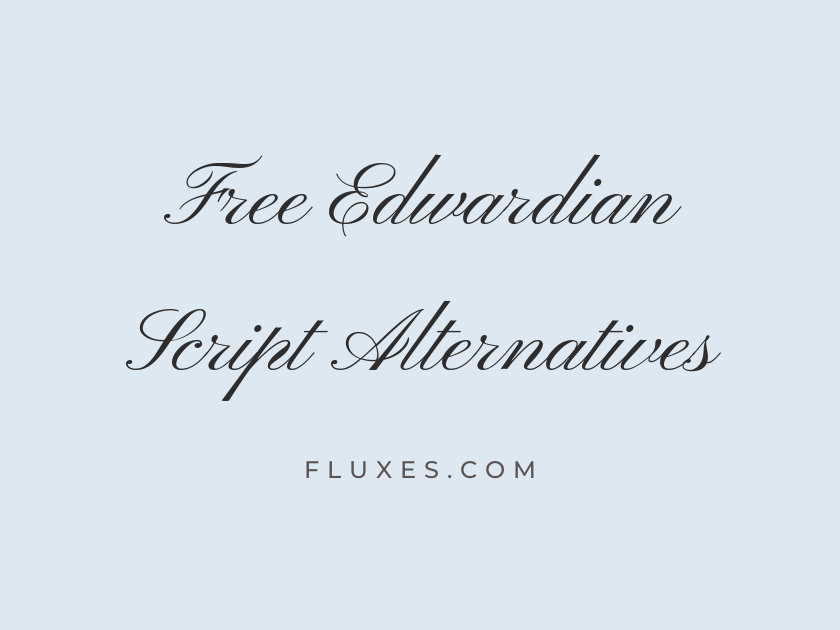
15 Best Free Fonts Alternatives to Edwardian Script
Edwardian Script ITC has long been the default choice for wedding stationery, formal certificates, and monogram logos, prized for its narrow, high-waisted letterforms and delicate flourishes. It is also a commercial font, which sends a lot of designers looking for a free alternative that captures the same copperplate elegance without the licensing fee. The good news is that Google Fonts has a genuinely strong bench of formal scripts, several of which echo Edwardian Script’s pointed-pen character closely enough to use as a direct substitute in invitations, place cards, and branding that wants a handwritten, old-world signature look.
Of everything on Google Fonts, Pinyon Script is the closest cousin to Edwardian Script in spirit: tall ascenders, looping descenders, and a slightly formal stiffness that reads as engraved rather than casual. It was built for exactly this kind of work, invitations, certificates, and monograms, and it holds up well even at modest sizes on print stock.
Great Vibes is looser and more rounded than a true copperplate script, but its warmth makes it one of the most popular wedding fonts on the platform. It pairs beautifully with a restrained serif for body text, since its own flourishes need room to breathe.
Alex Brush behaves like a brush-lettered signature rather than an engraved script, with visible pressure and taper in the strokes. Use it for a name treatment or a short vow rather than a paragraph; at small sizes the connecting strokes tend to thin out and lose definition.
Allura leans slender and upright, closer to Edwardian Script’s narrow proportions than most casual scripts, which makes it a solid stand-in on save-the-dates. It has a light, almost whispery presence on the page, so dark backgrounds or generous letter spacing help it hold its own.
There is a softness to Parisienne that feels more romantic than formal, with rounded terminals and gentle curves instead of sharp copperplate points. It suits invitation suites that want warmth over strict formality, especially when set large as a headline.
Tangerine is one of the oldest and most delicate scripts on Google Fonts, with hairline strokes that genuinely recall old engraving plates. It is worth setting a size or two larger than you think you need, since its thin build can disappear on lower-quality paper stock or low-resolution screens.
This one reads like an actual fountain-pen signature, fast and slightly irregular in a way that feels personal rather than printed. It works well as a signature line beneath a more legible formal script, echoing how Edwardian Script is often paired with a serif for the main text.
Herr Von Muellerhoff has a confident, sweeping quality with long entry strokes that give it real presence as a display headline. It is dense with flourishes, so it earns its keep in short phrases and names rather than full sentences.
Meddon sits on the friendlier end of the formal script spectrum, upright and legible with just enough flourish to feel special. Its restraint makes it a dependable workhorse for menus, place cards, and other pieces that need script character but also need to be read quickly.
Italianno is narrow, elongated, and unmistakably Italian in feeling, with a rhythm that suits monograms and short titling more than long passages. Its tight spacing benefits from a touch of extra letter spacing applied in CSS.
As the name suggests, this is a smaller, tidier script built for legibility rather than drama, closer to formal handwriting than calligraphy. It is a practical choice when a project needs a script typeface for body copy or addresses rather than just a headline.
WindSong has a modern, slightly casual looseness that softens the formality of a traditional copperplate script. It suits contemporary wedding branding that wants a script accent without feeling old-fashioned or overly ornate.
Rouge Script is bouncy and confident, with thicker strokes than most scripts on this list, which gives it better presence at small sizes. It reads less like engraving and more like polished brush lettering, a good option when Edwardian Script feels too delicate for the design.
Qwigley
Qwigley is a monoline script, meaning its strokes stay a single consistent width rather than swelling and tapering like a pointed-pen letter. That gives it a cleaner, more contemporary feel that works nicely on invitations wanting a lighter, more minimal script accent.
Add generous letter spacing and line height around a script headline; scripts need visual room to avoid feeling cramped.
Always test at the actual print or screen size you plan to use, since thin scripts can lose detail when scaled down.
Any of these free Google Fonts can stand in for Edwardian Script without sacrificing the formal, hand-lettered character that makes a script typeface feel special. Download a few, set them at real size against your layout, and let the weight of the flourishes guide which one earns the final spot on your invitation or brand.